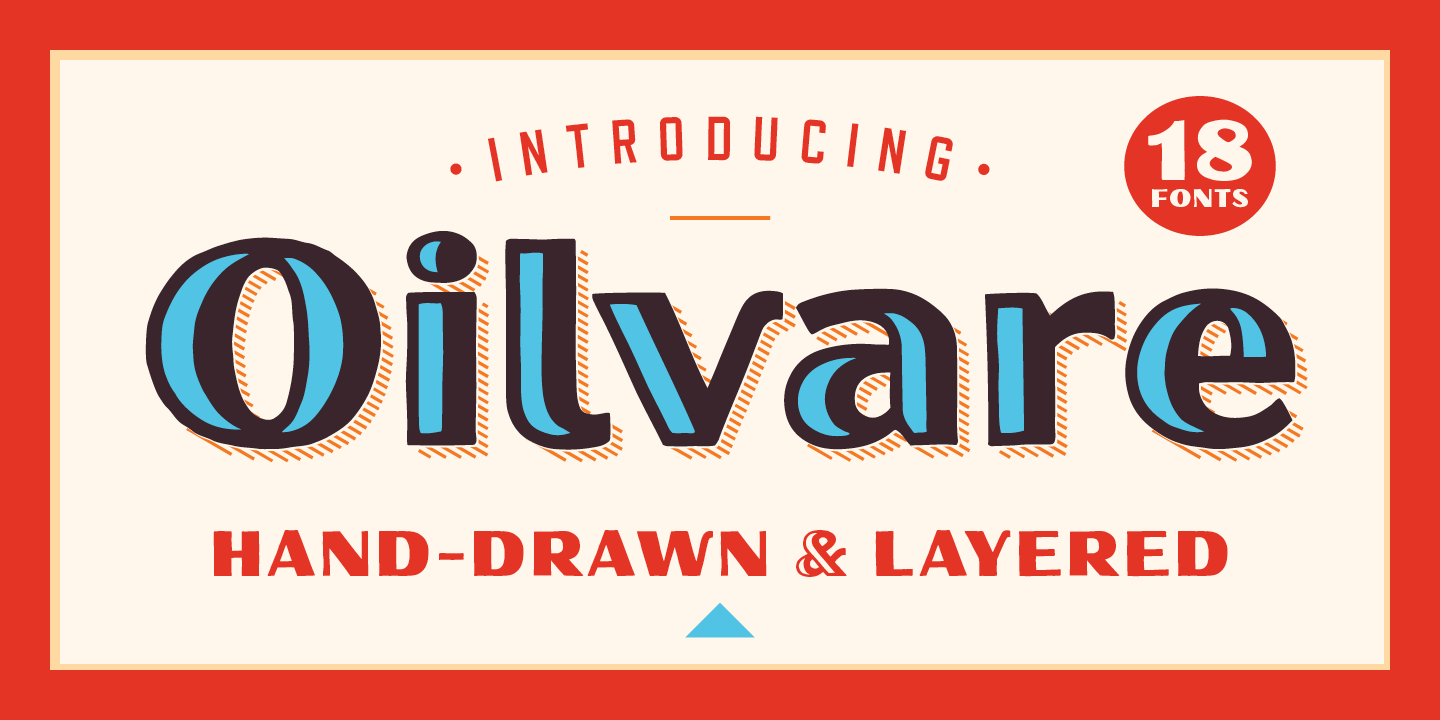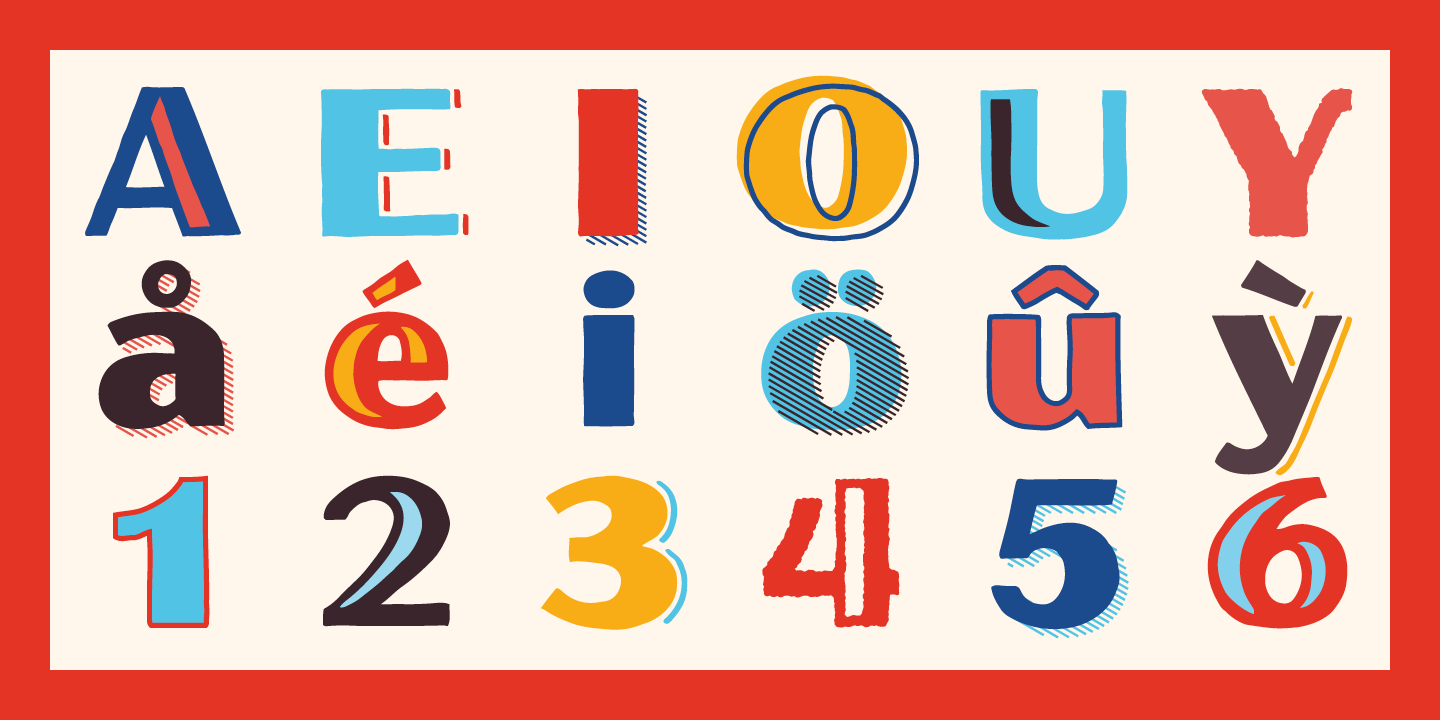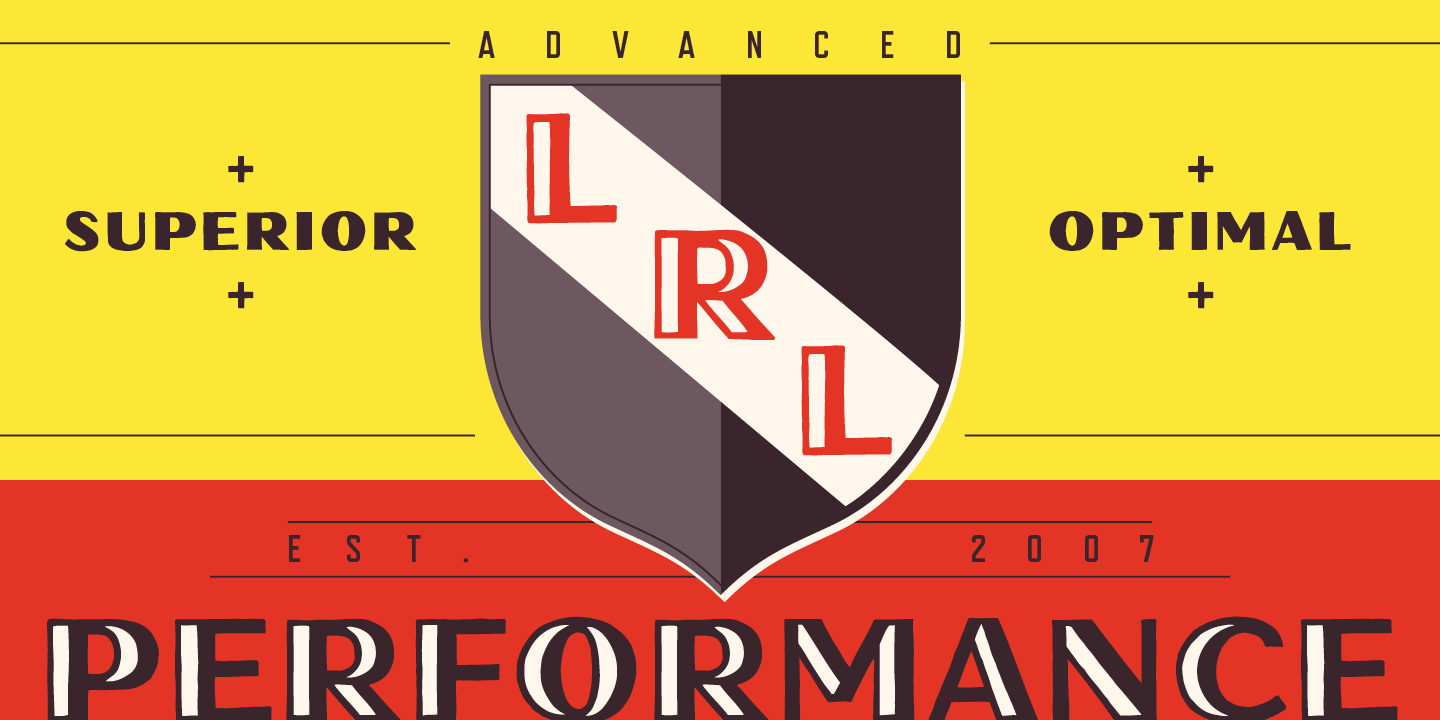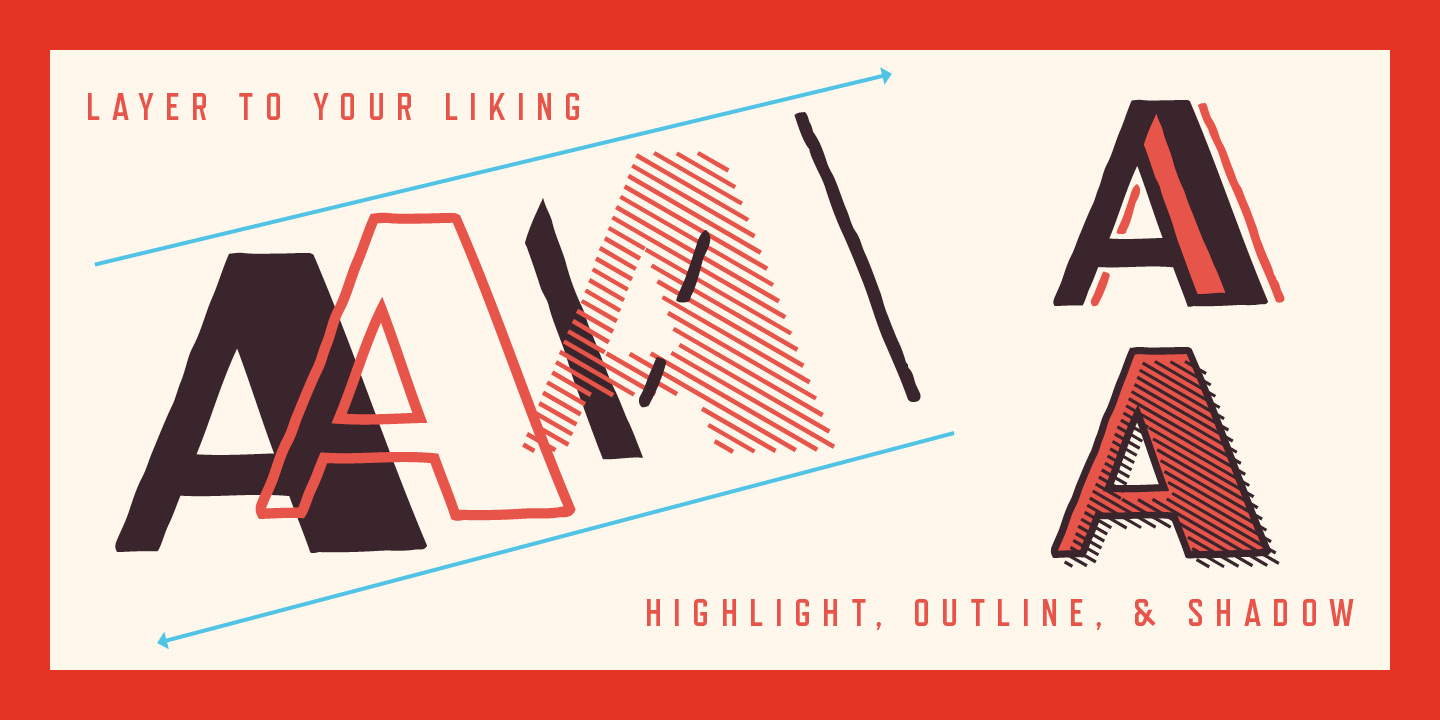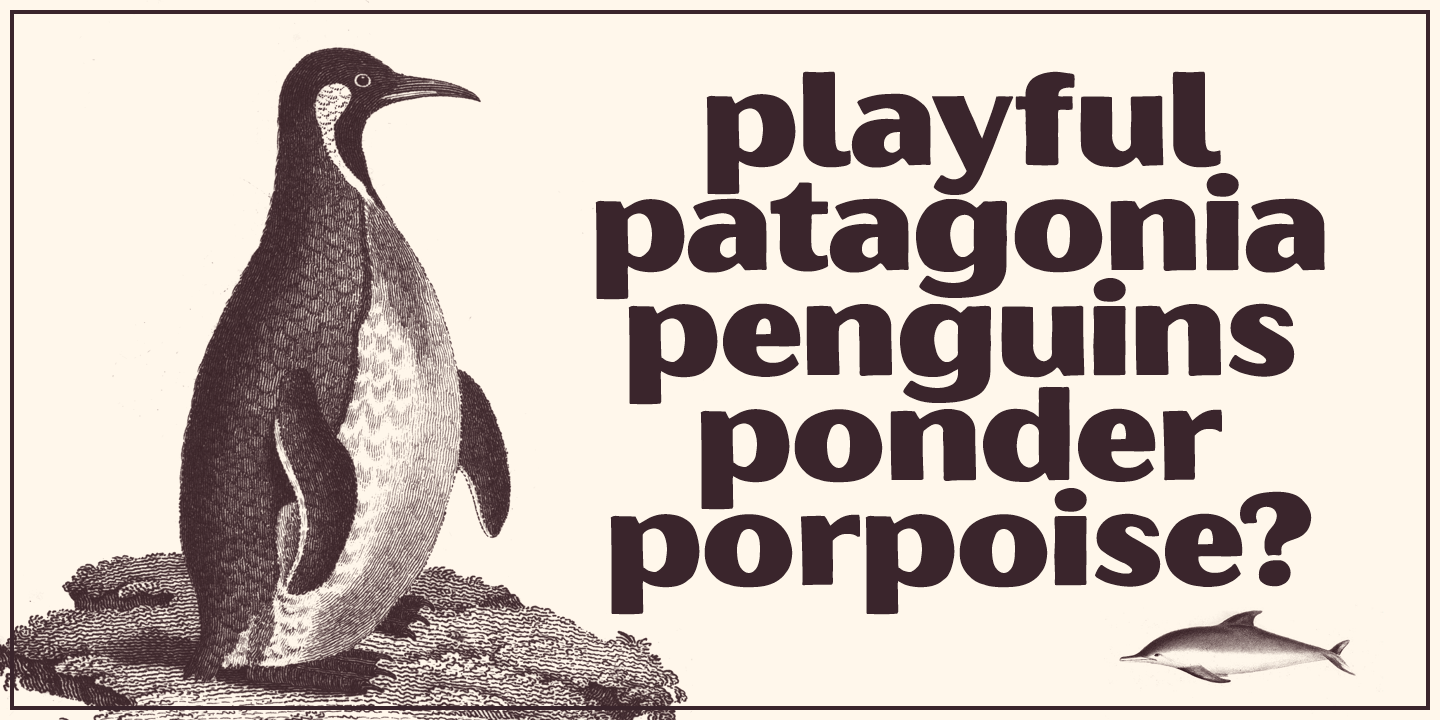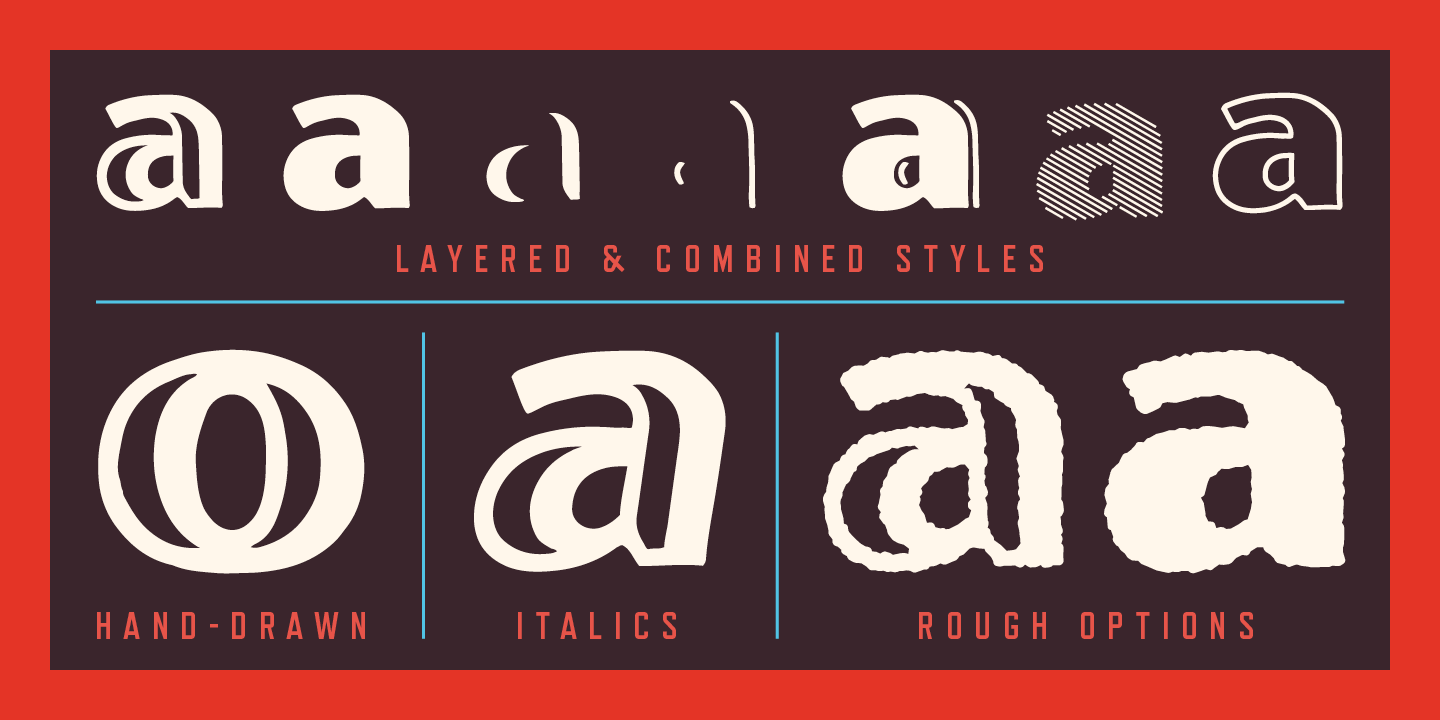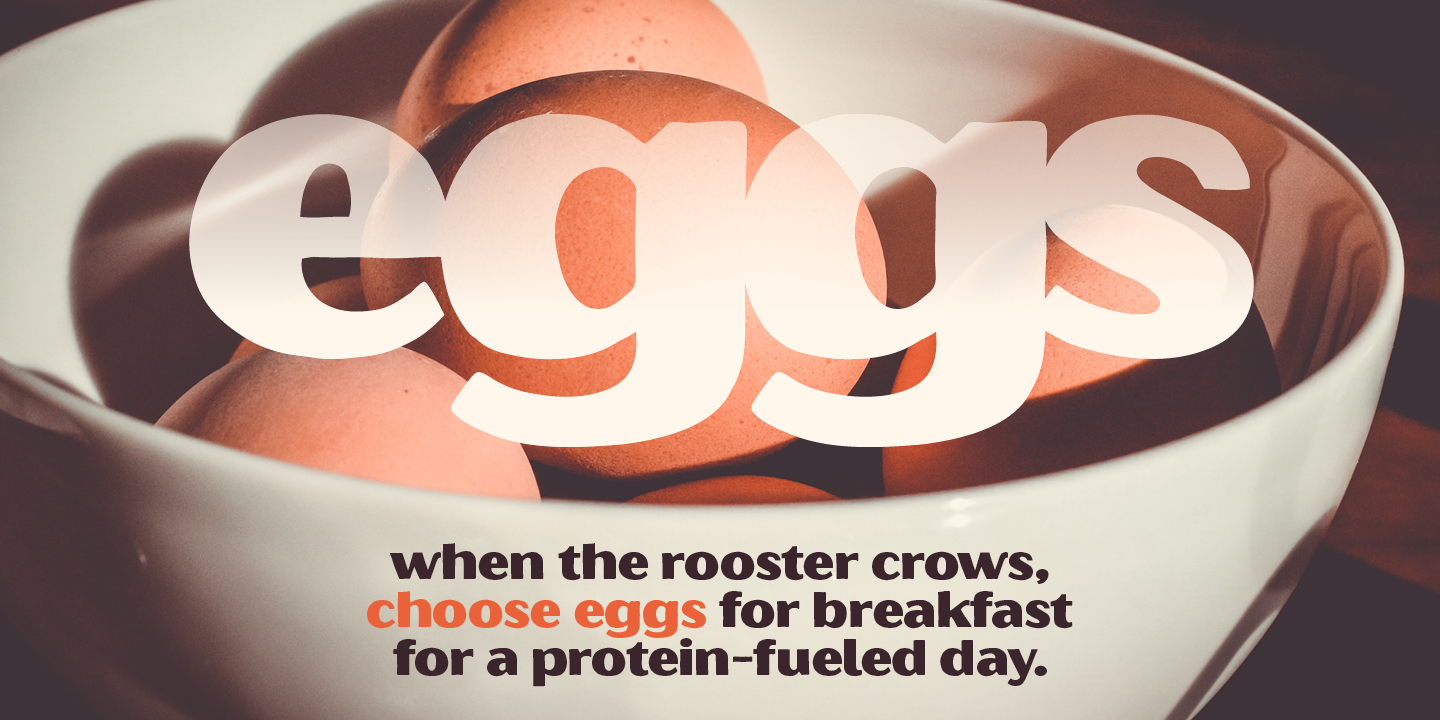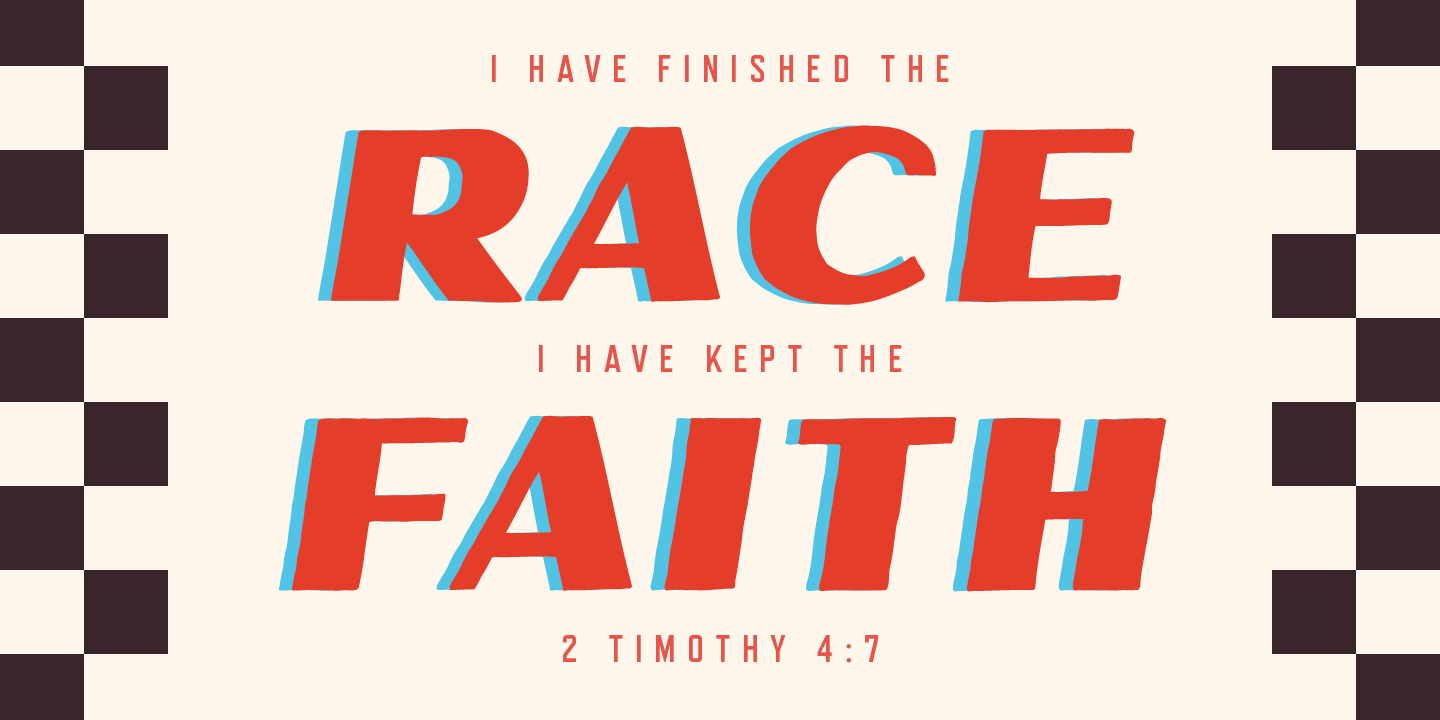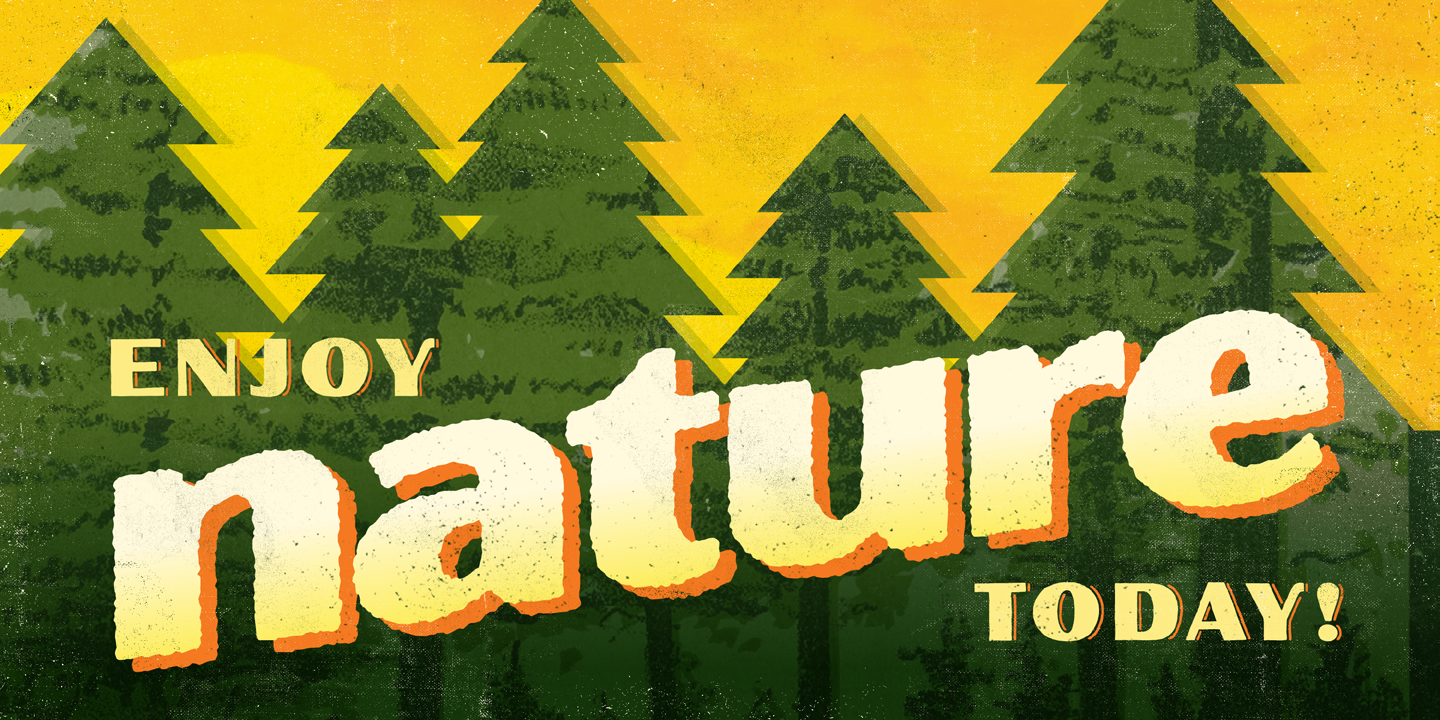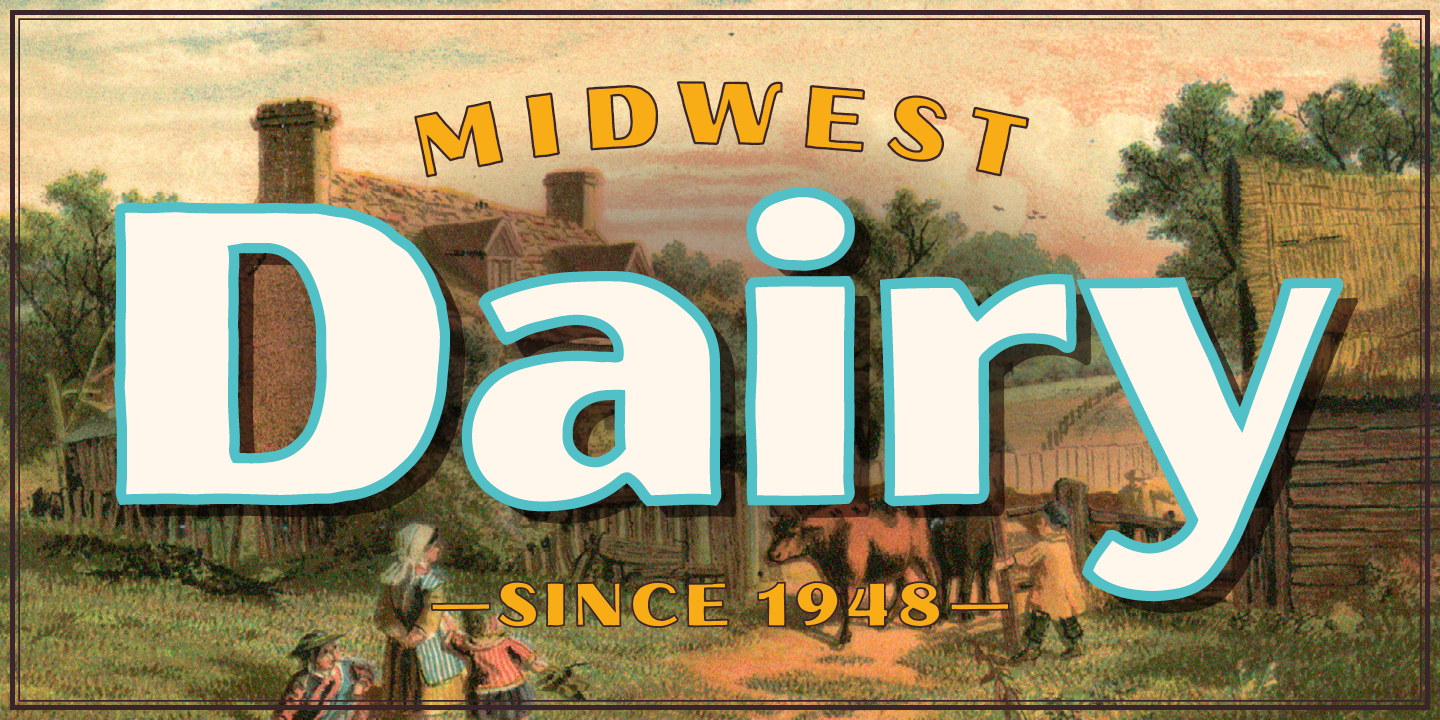
Oilvare is a hand-drawn, layered typeface family inspired by vintage painted signs and oil cans. While sturdy, it also has a softer side—wide proportions, oval-inspired forms, curled angle strokes (see characters like the K and V), and a medium contrast all help give it a little bit of distinction from the typical sans serif genre.
Mix, match, and layer the styles to your aesthetic liking. The separate highlight and shadow options really help the typeface come alive when colors are used, and there are also “rough” options for more texture. The subtle irregularities harken to hand lettering of the past.